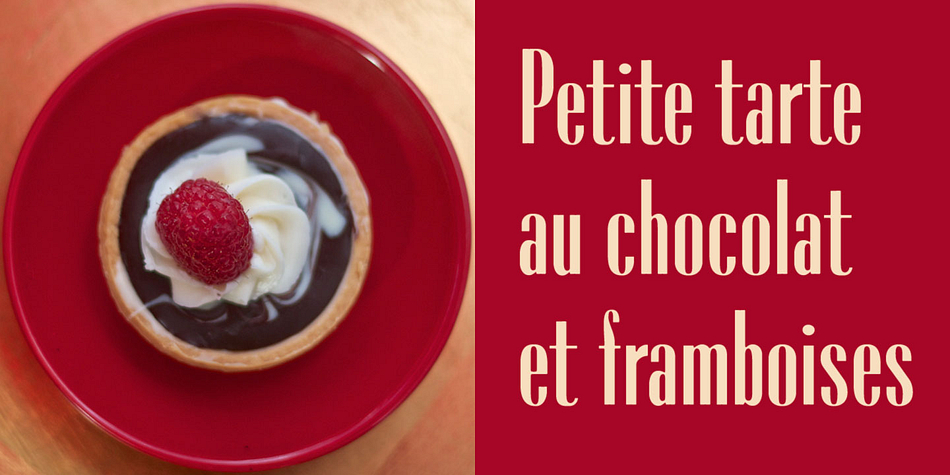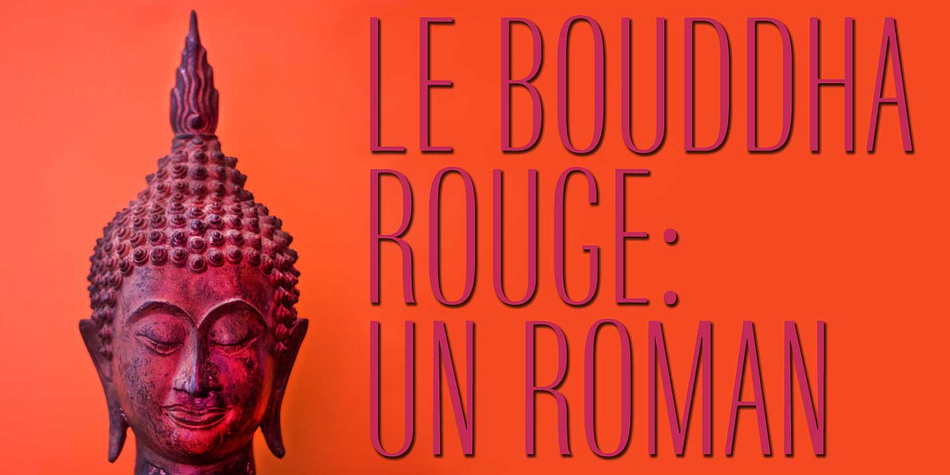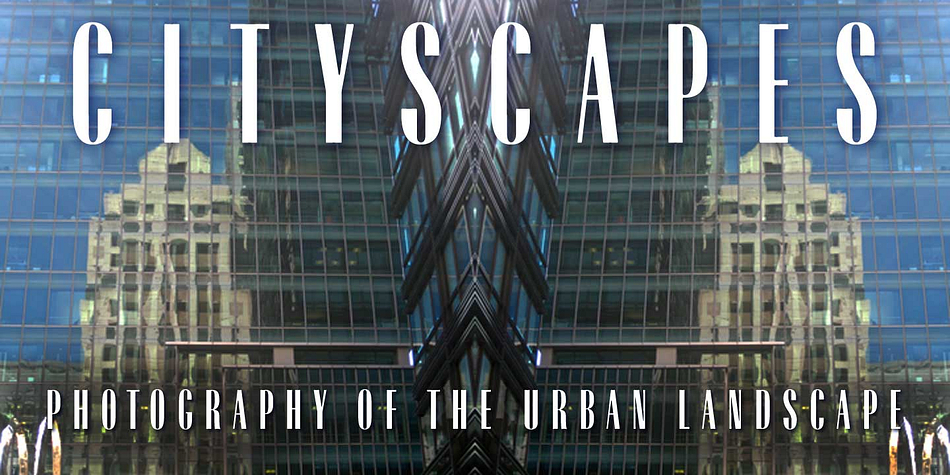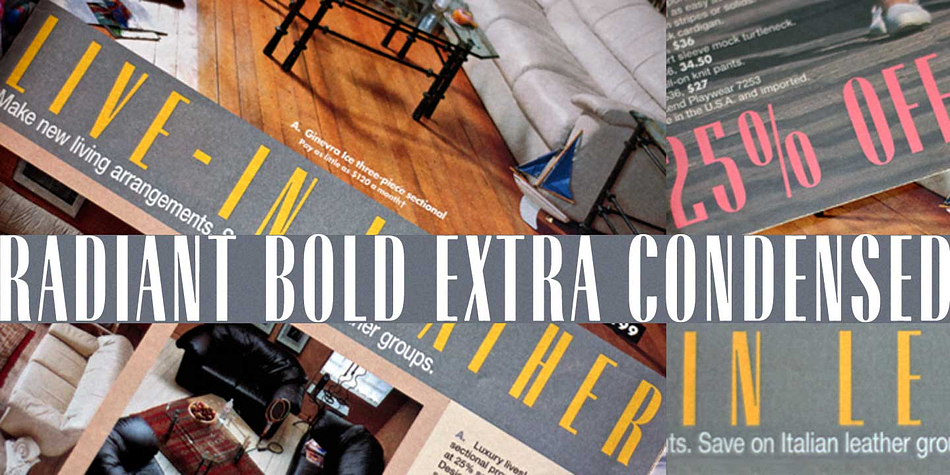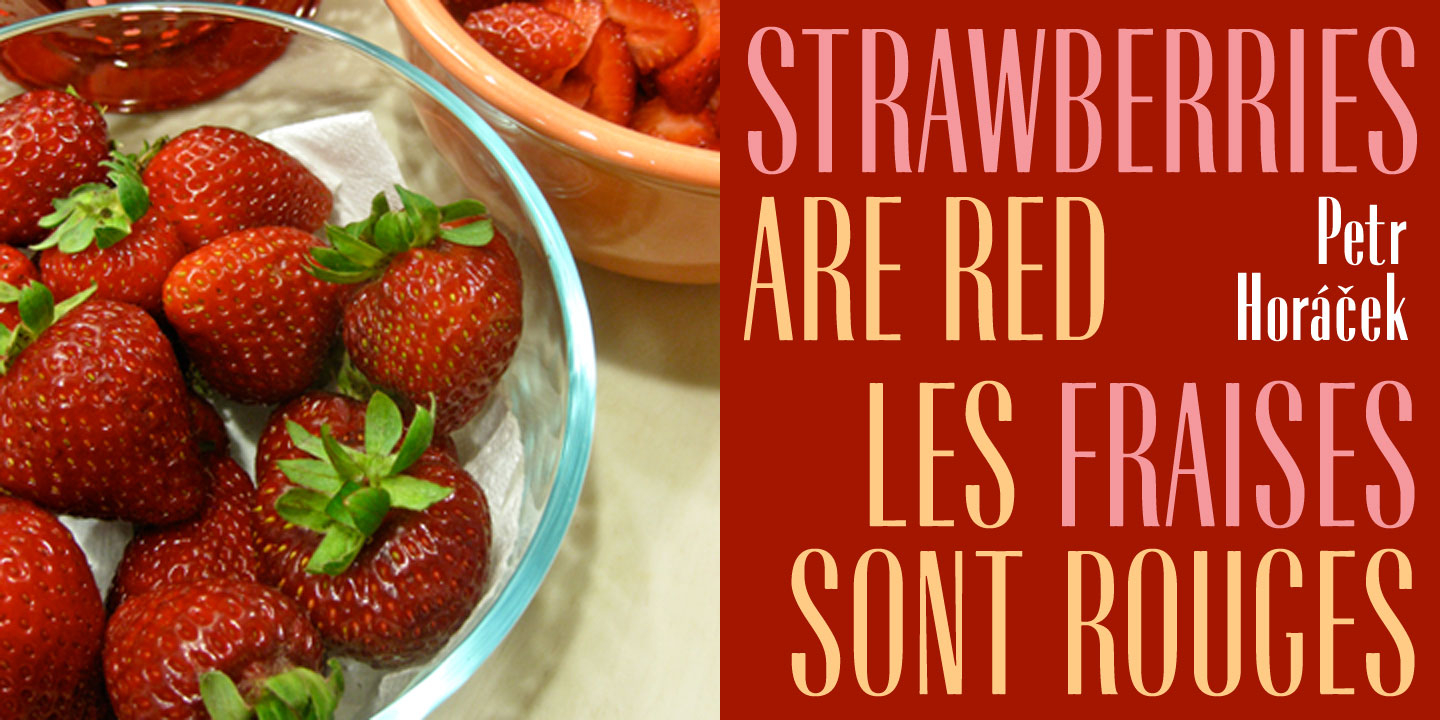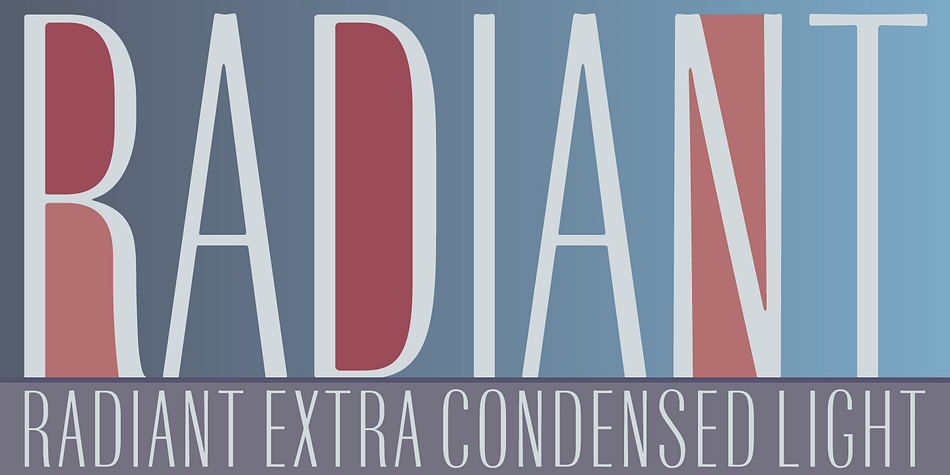
Radiant CT Extra Cond is a retro and display sans font family. This typeface has three styles and was published by CastleType.
My first commissioned work was to digitize Radiant Bold Extra Condensed (originally designed by Robert Middleton in 1940) for use in the Sunday supplement to the San Francisco Examiner. I later created Light and Medium weights to match. Because of its slightly rounded corners, the CastleType version of Radiant has a softer look than others available, and is the only one that includes the Cyrillic alphabet. Radiant CT Extra Condensed is available in 3 weight: Light, Medium, and Bold.